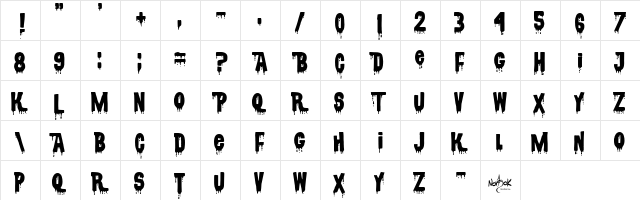
CSNPWDT NFI Regular
| Designer | Thomas W. Otto |
Design Context for CSNPWDT NFI Typeface
CSNPWDT NFI is a composed and adaptable typeface that performs quietly and consistently across a wide range of design contexts.